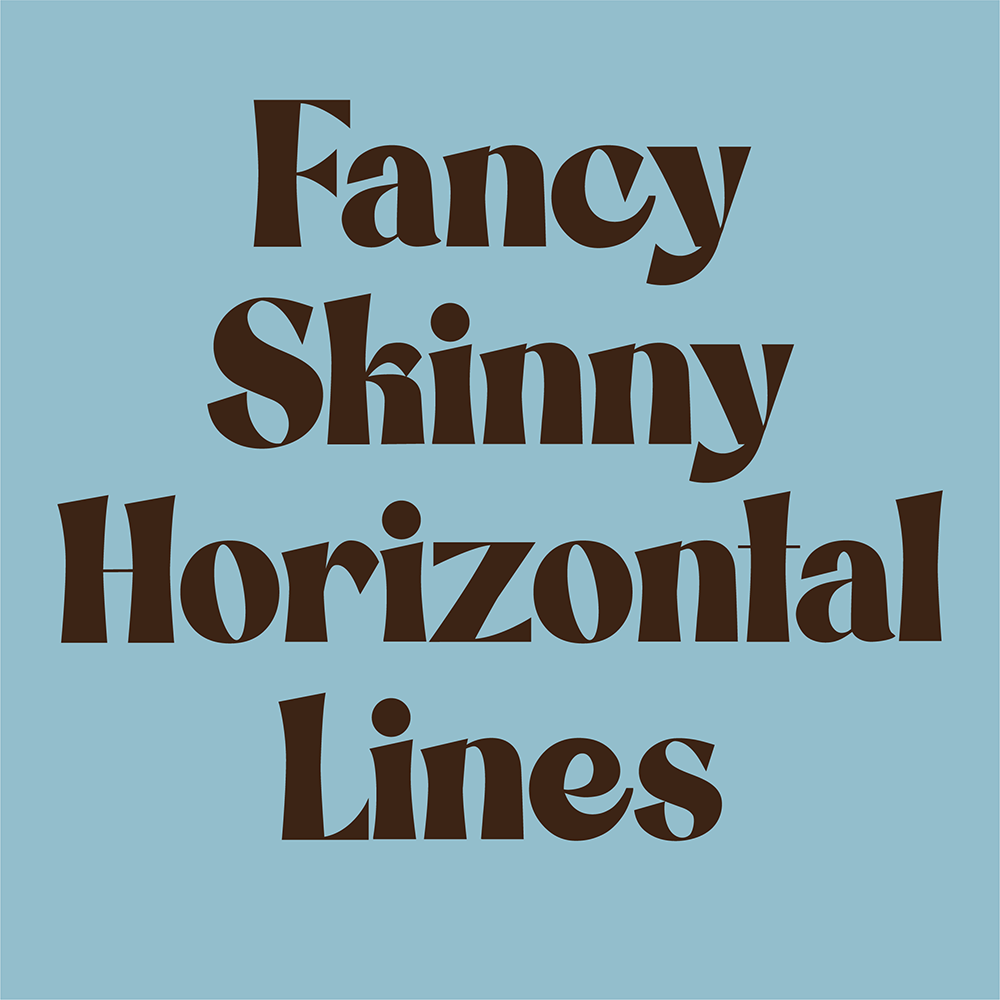
Image 1 of 3 Image 2 of 3 Image 3 of 3 ISLAND CABANA (Fancy Version) Stylized Modern Sans Font $2.50 Stylized Modern Sans Font. Fancy Version with thin horizontal lines. Add To Cart Added! Stylized Modern Sans Font. Fancy Version with thin horizontal lines. Reviews Reviewer Name Review Date Star Rating Description Posted on Etsy Product Show More